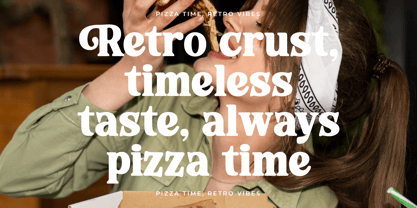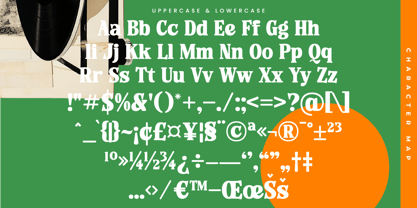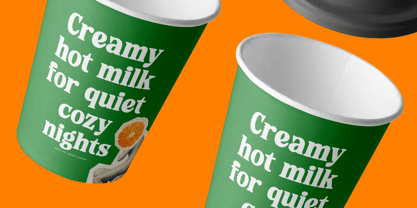
Rolling Basket
by Timelesstype Studio
The Rolling Basket Font Family was designed by Heru Utama Putra and published by Timelesstype Studio. Rolling Basket contains 2 styles and family package options. More about this family
Rolling Basket - Modern Serif Font , from Timelesstype, Suitable for any projects such as: logos, branding projects, homeware designs, product packaging, mugs, quotes, posters, shopping bags, t-shirts, book covers, name card, invitation cards, greeting cards, label, photography, watermark, special events, and all your other luxury and beautiful projects that need a Luxury Serif taste.